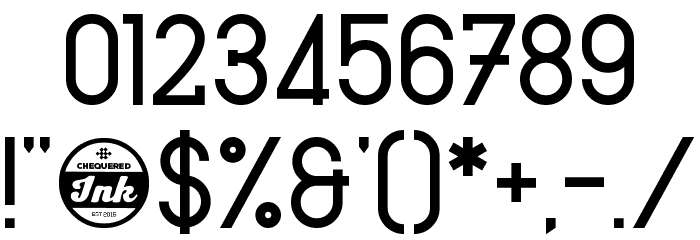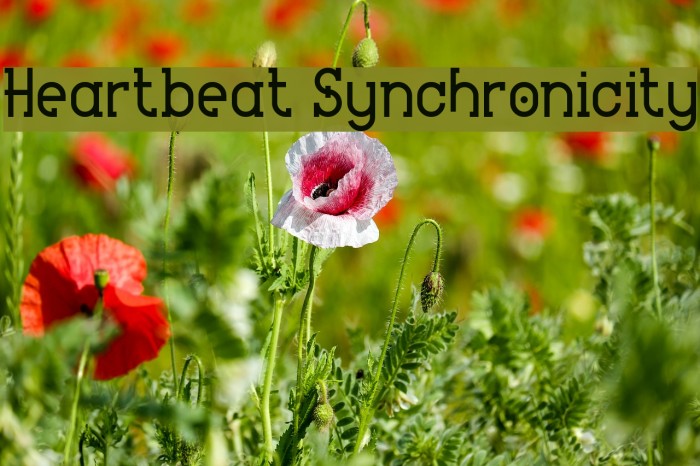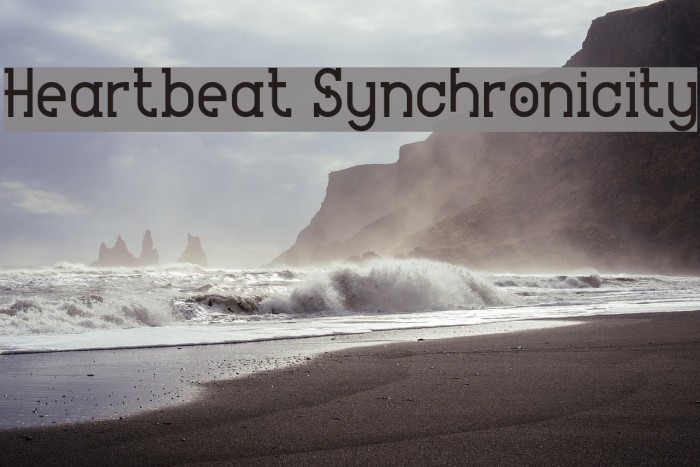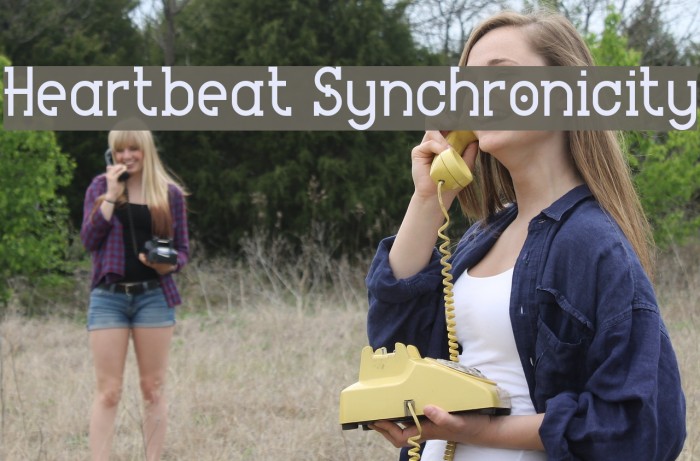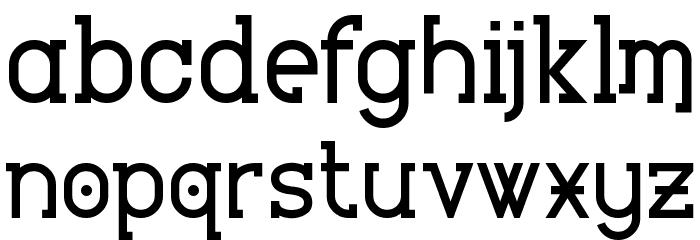
Heartbeat Synchronicity Font
Heartbeat Synchronicity Description
This font features a distinctive geometric style with a modern twist. The uppercase letters are bold and structured, with unique elements such as the triangular 'A' and the bar across the 'G'. The lowercase letters maintain a consistent geometric form, providing a harmonious balance between the characters. Numbers are clear and legible, with a slight emphasis on angular shapes. Special characters are creatively designed, adding a playful yet sophisticated touch. The overall appearance is clean and contemporary, making it suitable for a variety of design projects.
A modern geometric font with bold, structured uppercase and harmonious lowercase letters from Uncategorized fonts.